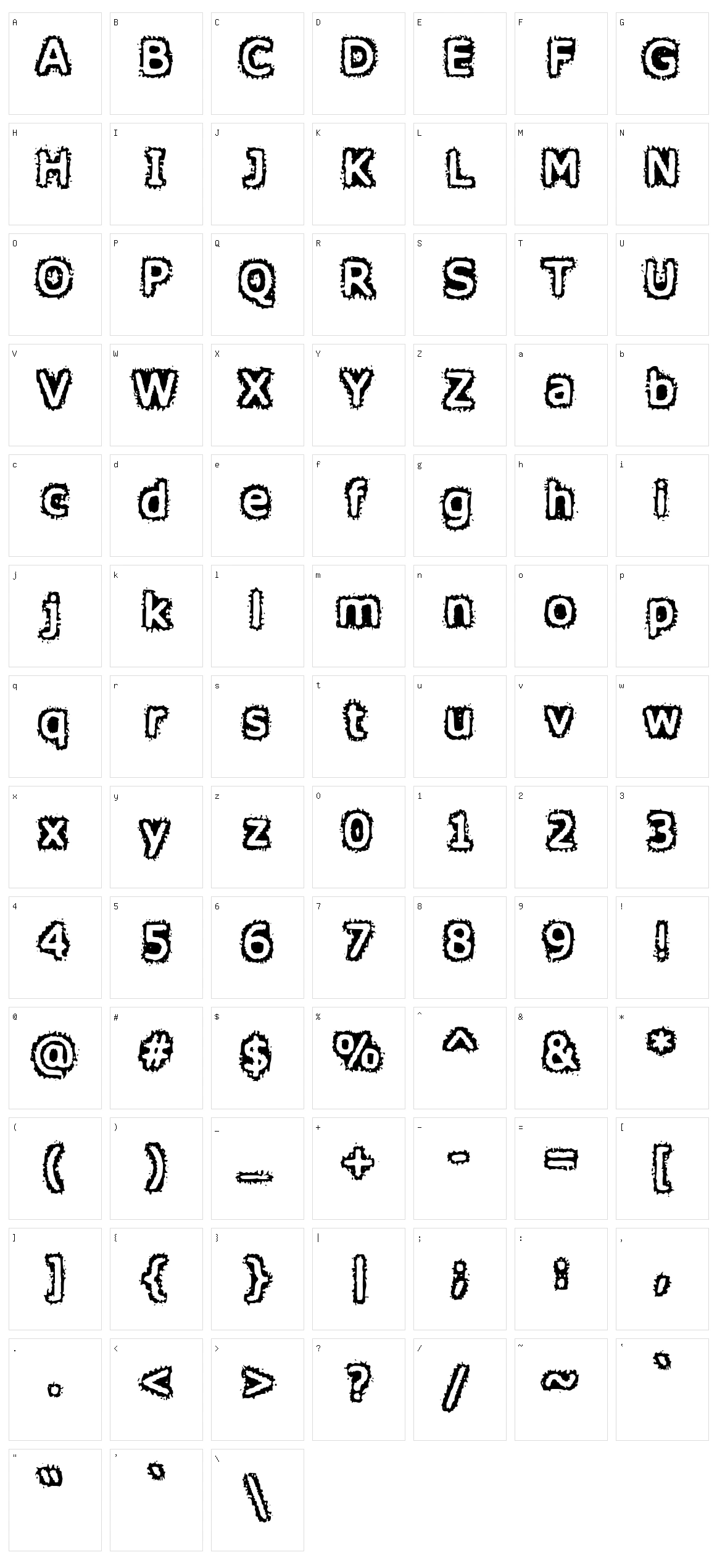
The free font Honey I spilt Verdana...! is carefully designed by Benjamin Wendl, showcasing a thoughtful balance of creativity and usability and falls under the Distorted font style. When you download the ZIP file, it contains only 76.51 KB of font files, making it lightweight and quick to download. Please review the license details below to understand permitted usage and distribution rights. If license information is not available, we recommend using this font for personal projects only or contacting the author directly for commercial usage permissions.